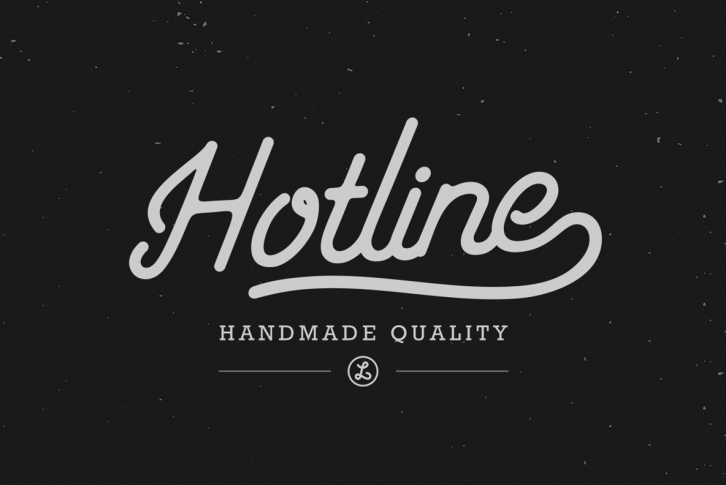
Hotline is a monoline script designed by Locomotype. Hotline contains opentype features such as ligatures, stylistic alternates, swashes and much more.